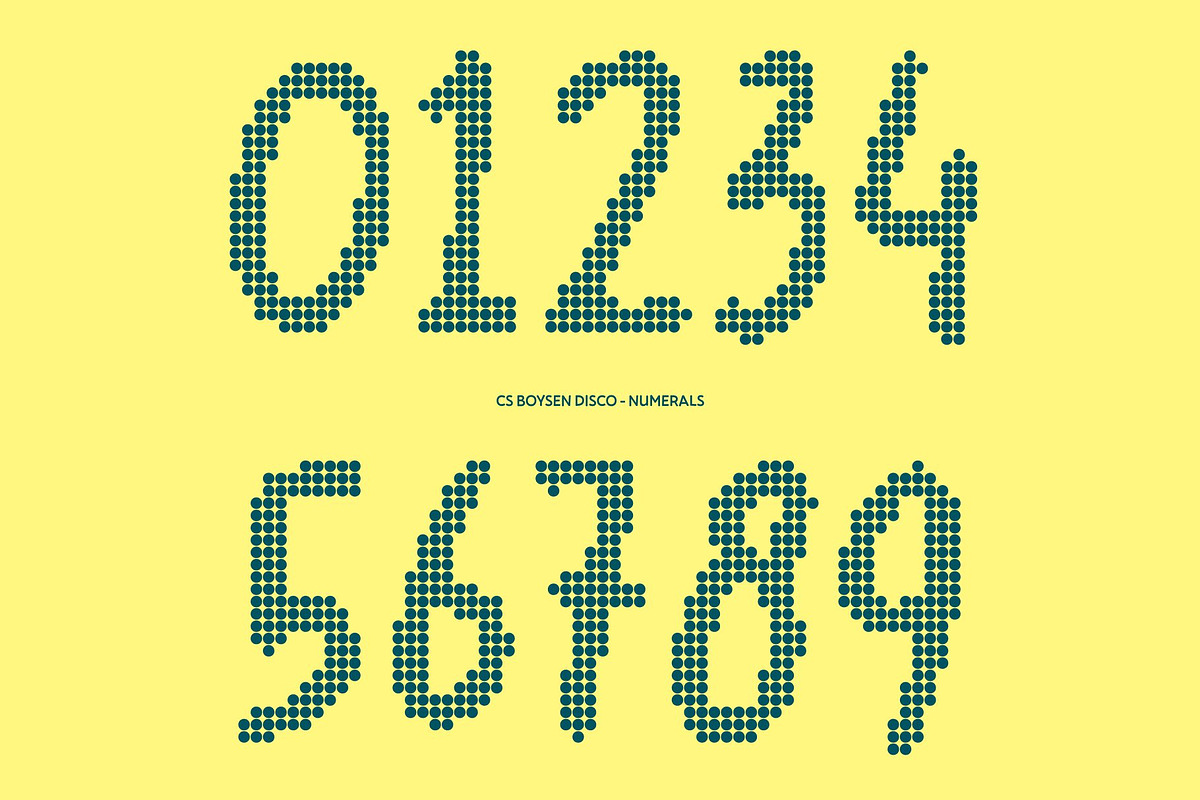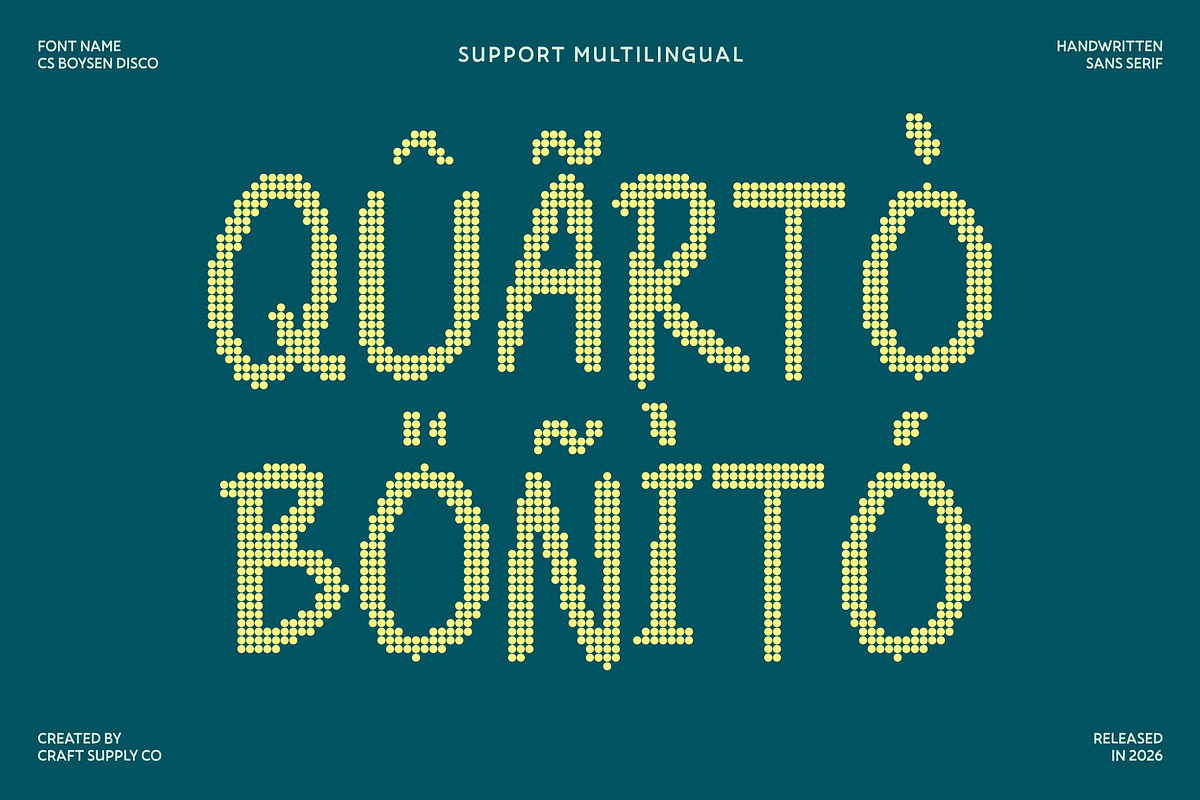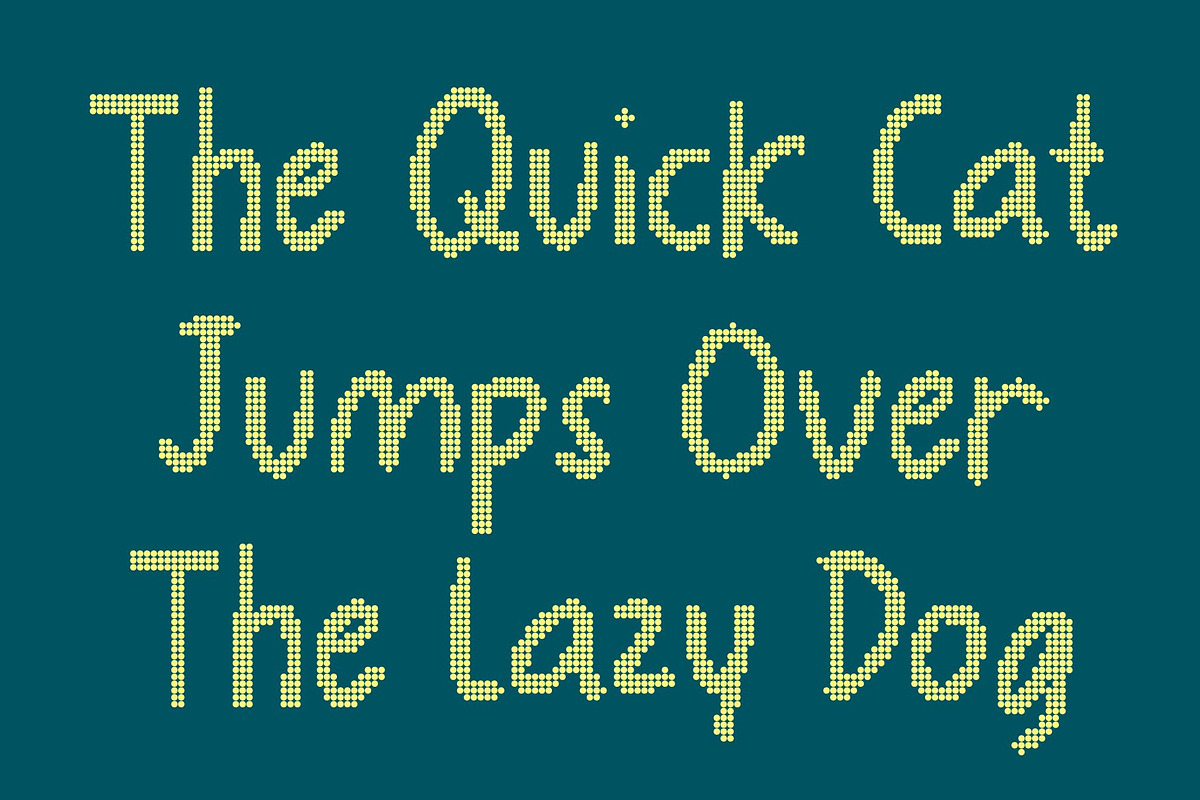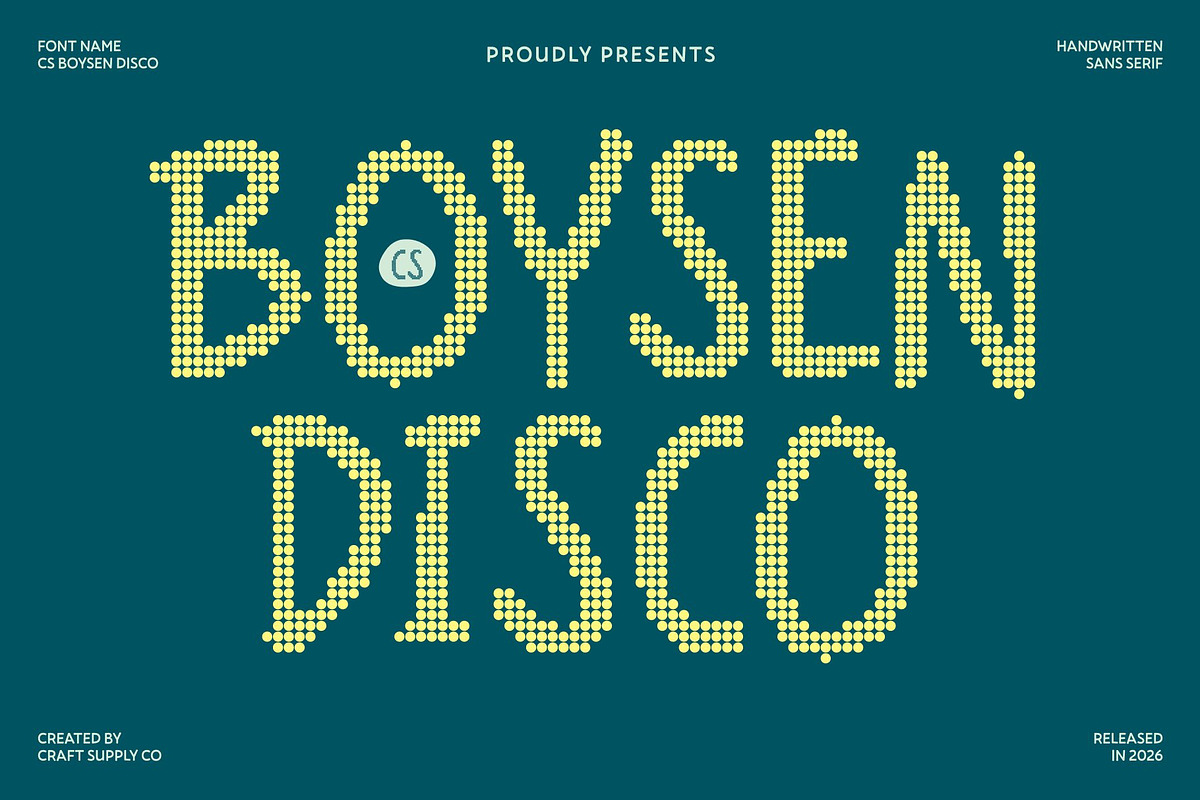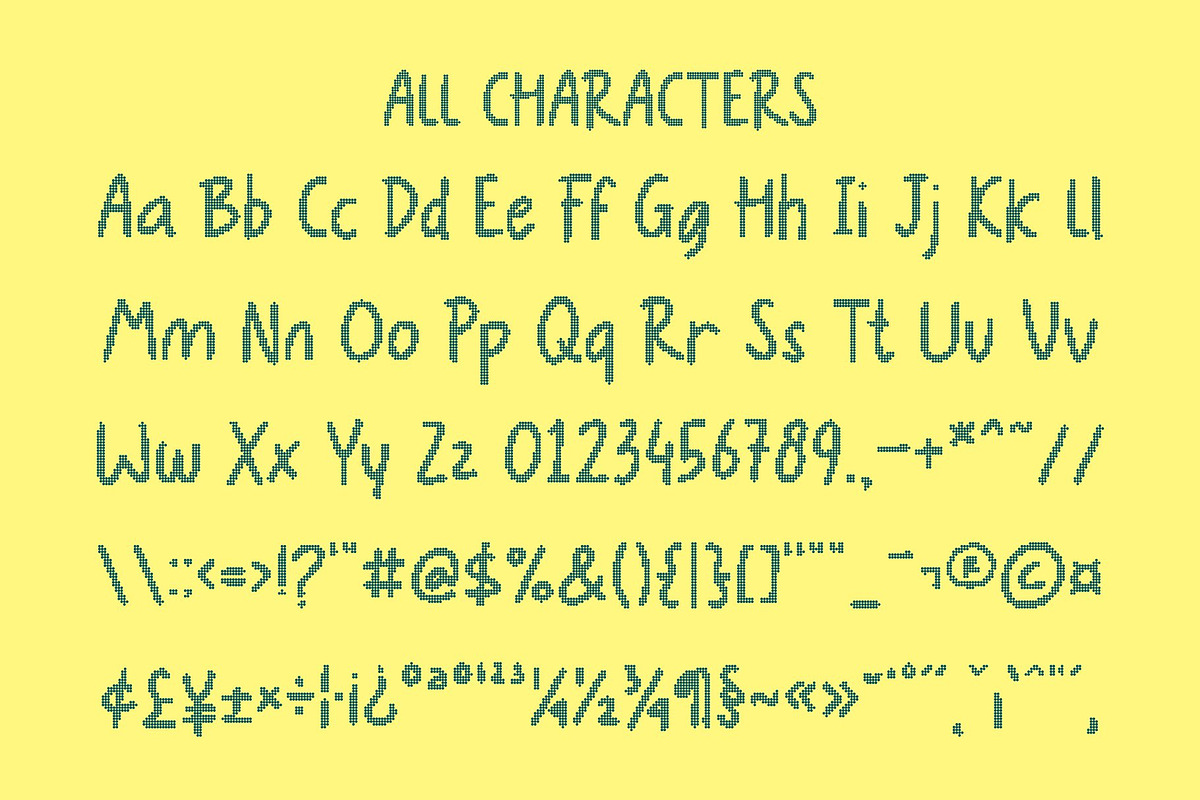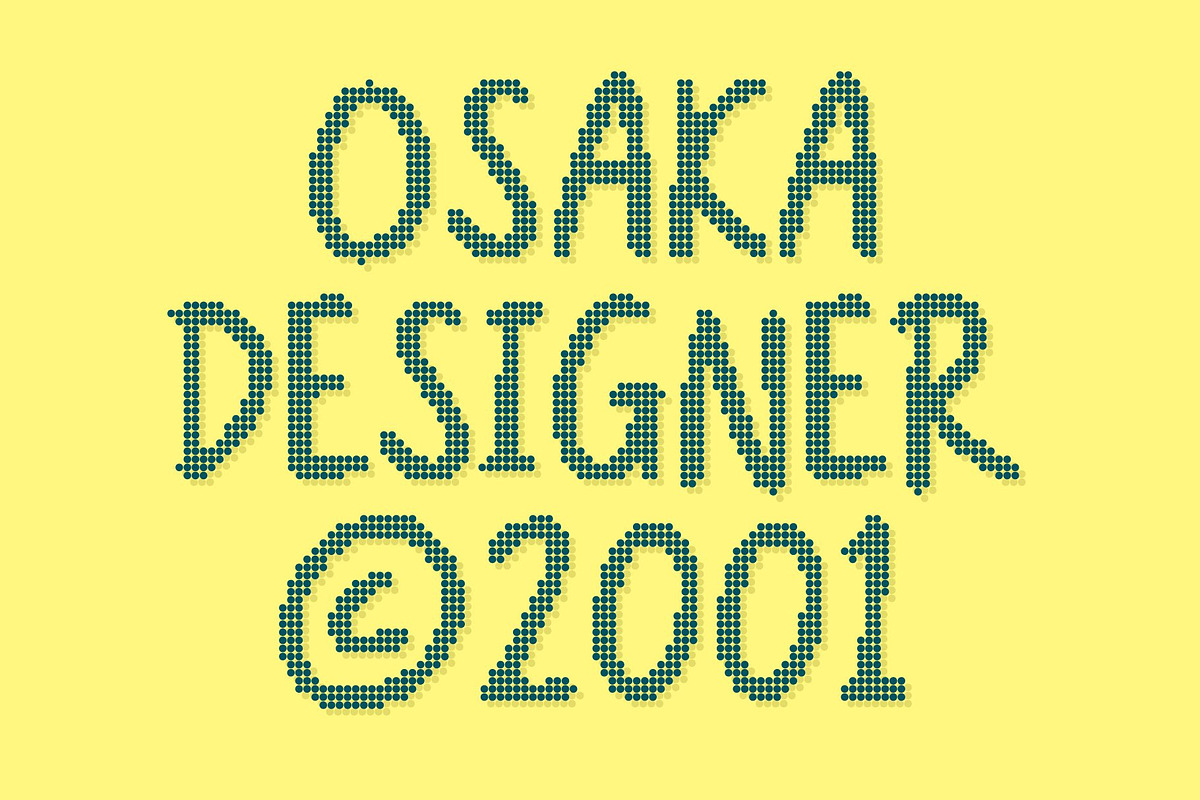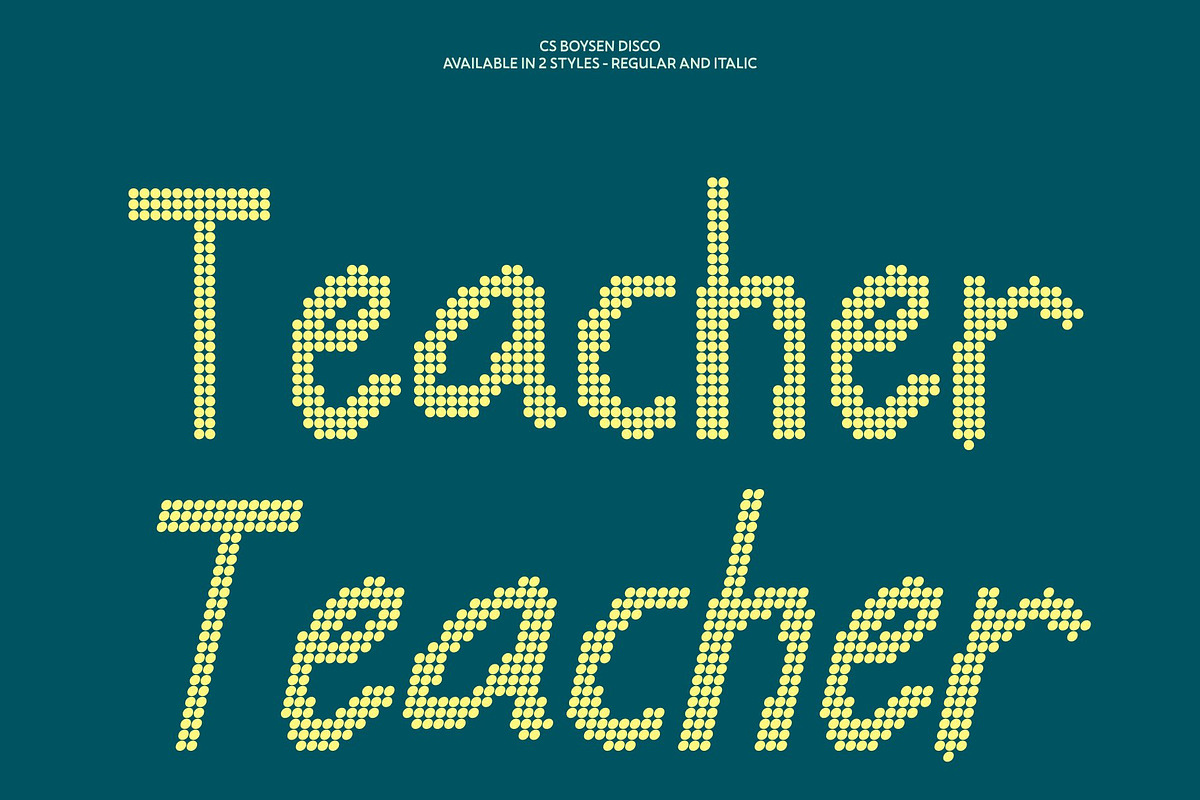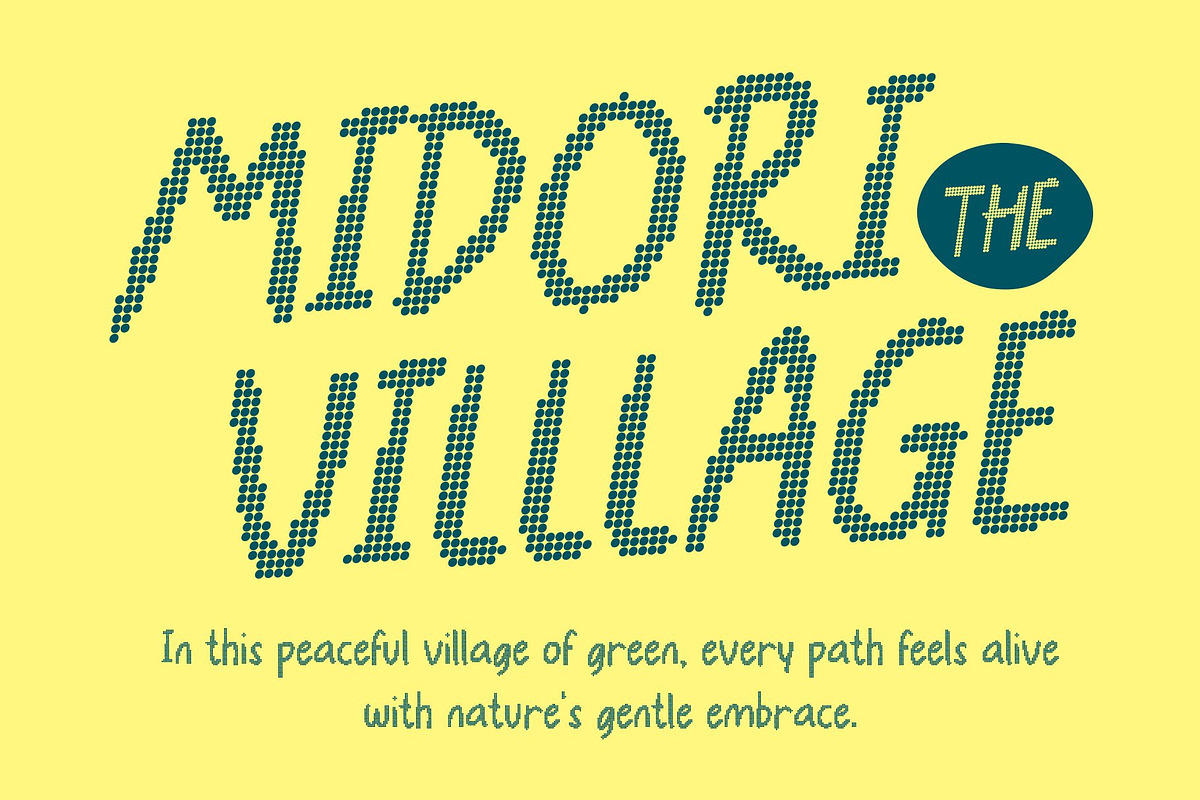
CS Boysen Disco
CS Boysen Disco – Joyful Handwriting with Dance Floor Energy
Handwritten Style with Disco Spark This is a lively handwritten font that bursts with joy, rhythm, and celebration. Its rounded sans serif strokes and playful curves radiate movement, transforming every word into a cheerful expression. Designed to feel spontaneous yet balanced, this font captures the charm of natural handwriting now infused with disco-inspired energy and vibrant personality.
Rounded Strokes with Glamorous Glow The smooth, rounded edges create a soft and welcoming feel while echoing the shine and sparkle of a lively dance floor. Each letter flows effortlessly, reflecting friendliness and excitement. The subtle bounce in its forms gives text a dynamic groove, making designs feel animated, upbeat, and full of life.
Playful Shapes with Party Rhythm With its slightly quirky and expressive letterforms, brings visual rhythm and motion to every composition. The energetic curves and lively proportions channel the glamour and carefree spirit of disco nights perfect for kids’ themes, festive posters, party invitations, or any design that celebrates fun and imagination.
Perfect for Cheerful, Glamorous Creations From children’s projects and joyful branding to event graphics, music-themed visuals, and vibrant social media posts, this font adapts effortlessly. Its blend of handwritten warmth and disco sparkle makes it ideal for designs that aim to capture celebration, positivity, and the electrifying atmosphere of the dance floor.
CS Boysen Disco Regular
CS Boysen Disco Italic